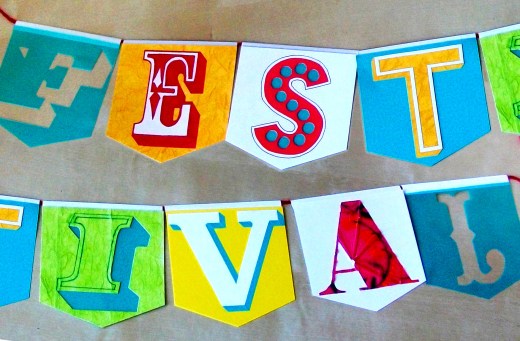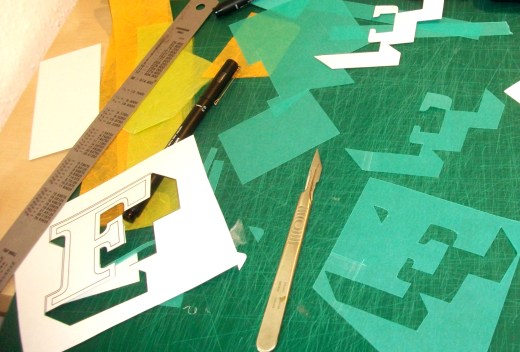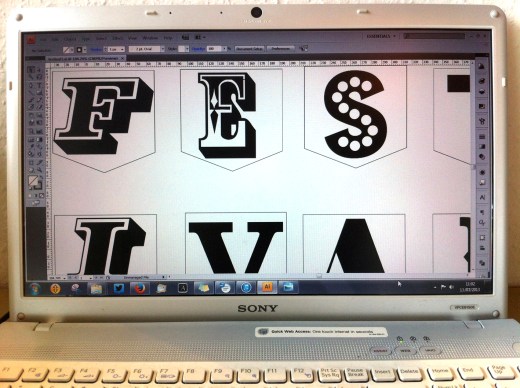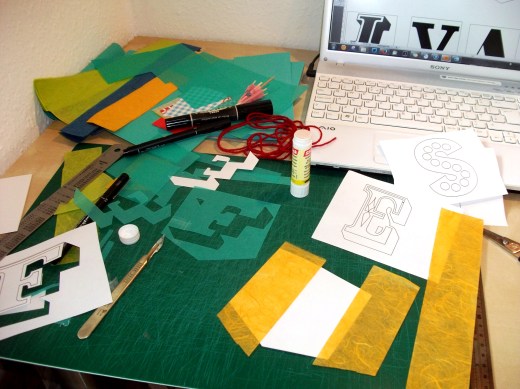
‘Festival’ by Zoë Chan
“My main inspiration for ‘Festival’ is my love of vintage signage and type, especially that which typifies ‘Britishness’ and has been used in various street and building signs around London over the 19th-mid 20th Century. My passion is type in the environment / spatial type, and aside from the typefaces used being taken from signage I chose to display it as bunting; this both embodies the idea of festival and celebration and it can be hung in any environment, both inside and outside. My colours and materials used signify the excitement, eclecticism and cacophony of sights, sounds and emotions found around London.”
‘Festival’ by Zoë Chan will be displayed at Type Tasting with the London Design Festival 2013 at the V&A.